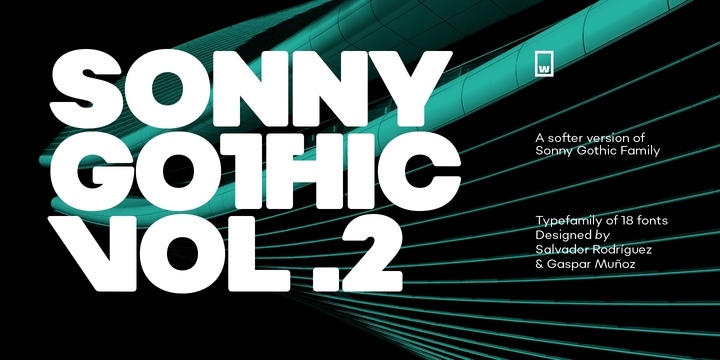
Sonny Gothic Vol 2 Font is perfect for various design applications including contemporary brand identities, modern tech company logos, sleek product packaging, urban fashion labels, progressive architectural signage, cutting-edge digital interfaces, minimalist corporate materials, contemporary art gallery displays, modern editorial layouts, and forward-thinking startup communications. This refined typeface excels in projects requiring contemporary sophistication and modern aesthetic appeal that communicates innovation, clarity, and progressive design sensibilities.
What makes Sonny Gothic Vol 2 Font so exciting is its masterful evolution of gothic typography principles into contemporary design language through letterforms that balance traditional strength with modern refinement. The font features clean geometric construction with subtle humanist influences, optimized proportions that ensure exceptional readability across all media, and contemporary character details that feel both timeless and current. Its distinctive modern character and sophisticated versatility make it perfect for brands seeking to communicate innovation, reliability, and the kind of progressive thinking that defines successful contemporary businesses.
Sonny Gothic Vol 2 Font family includes comprehensive weight options from light to black, along with matching italic styles that provide complete typographic flexibility for complex modern design systems. Each weight maintains the font's signature contemporary character while offering clear hierarchy options for sophisticated communications. The family also features extended character sets, professional ligatures, and carefully designed numerals that ensure optimal performance in both digital and print applications.
Whether you're developing contemporary brands, modern communications, or progressive design projects, Sonny Gothic Vol 2 Font Free Download delivers the typographic sophistication that forward-thinking organizations require. This typeface transforms standard communications into polished presentations that reflect contemporary design awareness and professional competence. The font's modern appeal makes it particularly effective for technology companies, creative agencies, and progressive brands targeting audiences who appreciate clean, sophisticated design and contemporary aesthetics.
Sonny Gothic Vol 2 Font stands out through its intelligent refinement of classic gothic principles for contemporary applications that feel both familiar and fresh. Its carefully engineered proportions and modern details ensure exceptional performance across all contemporary media, while its sophisticated character adds personality without overwhelming content. From comprehensive brand systems to detailed interface work, this font provides designers with tools to create communications that celebrate contemporary design excellence and demonstrate sophisticated understanding of modern typography through clean, progressive letterforms.